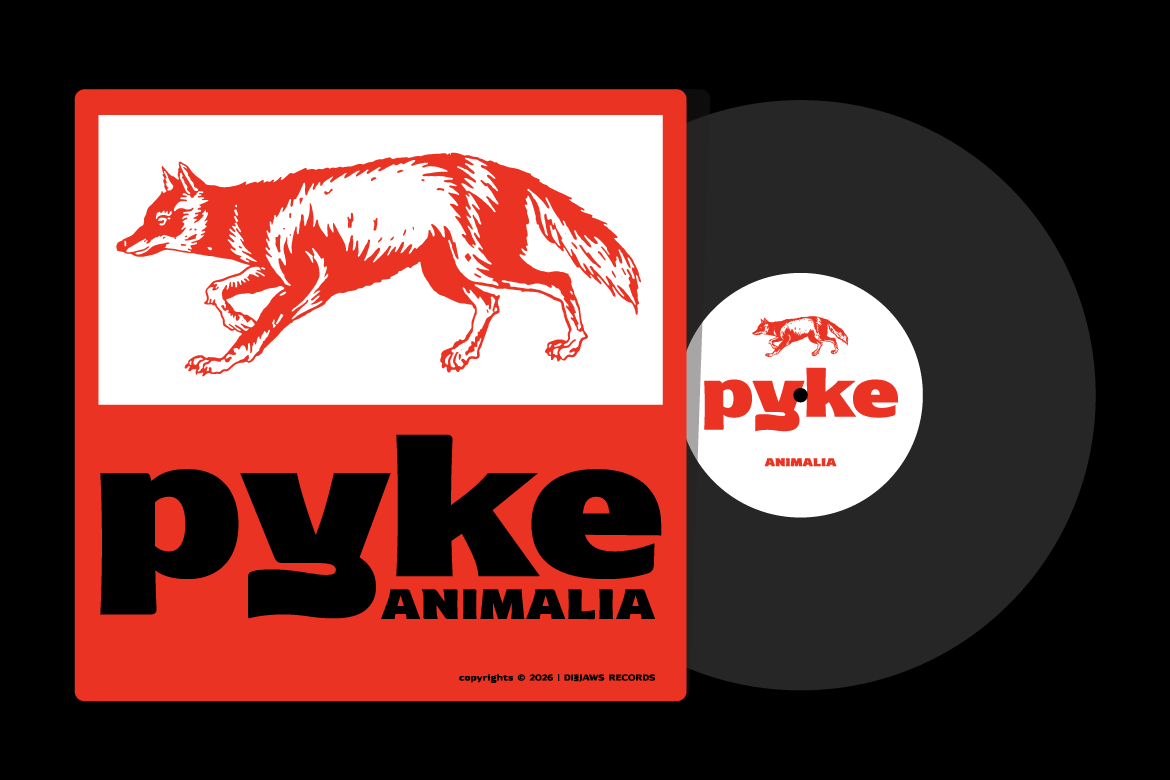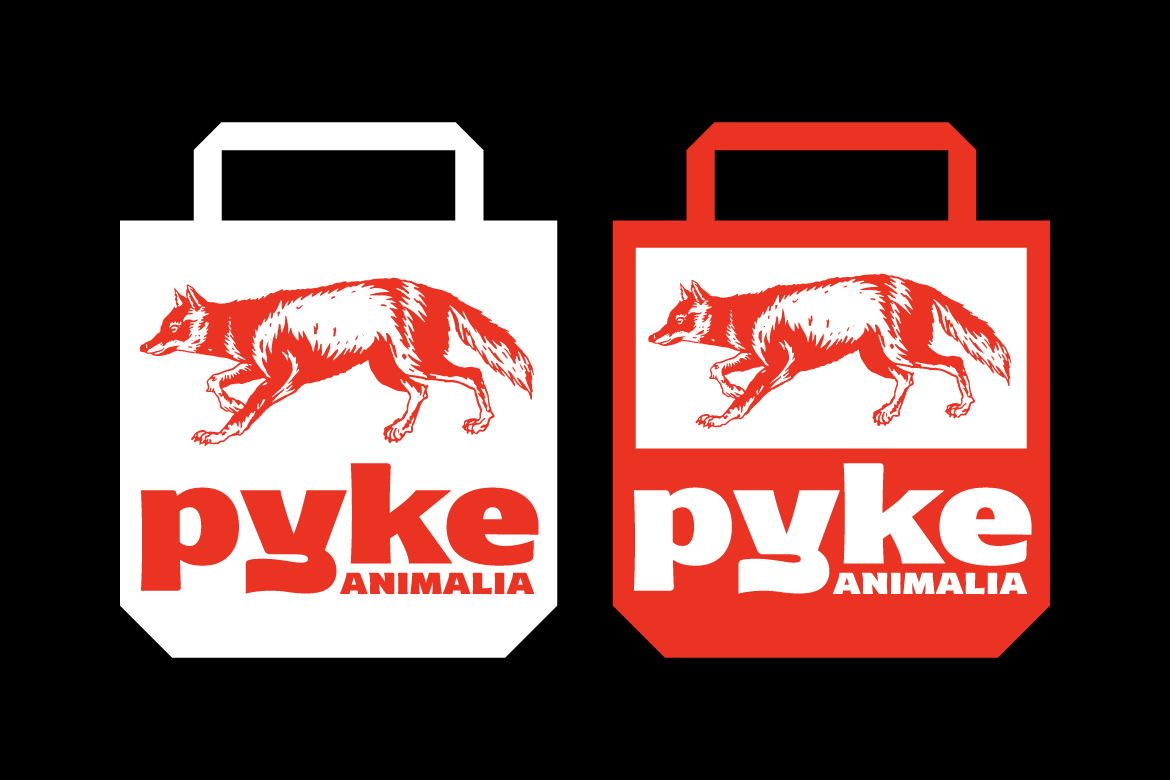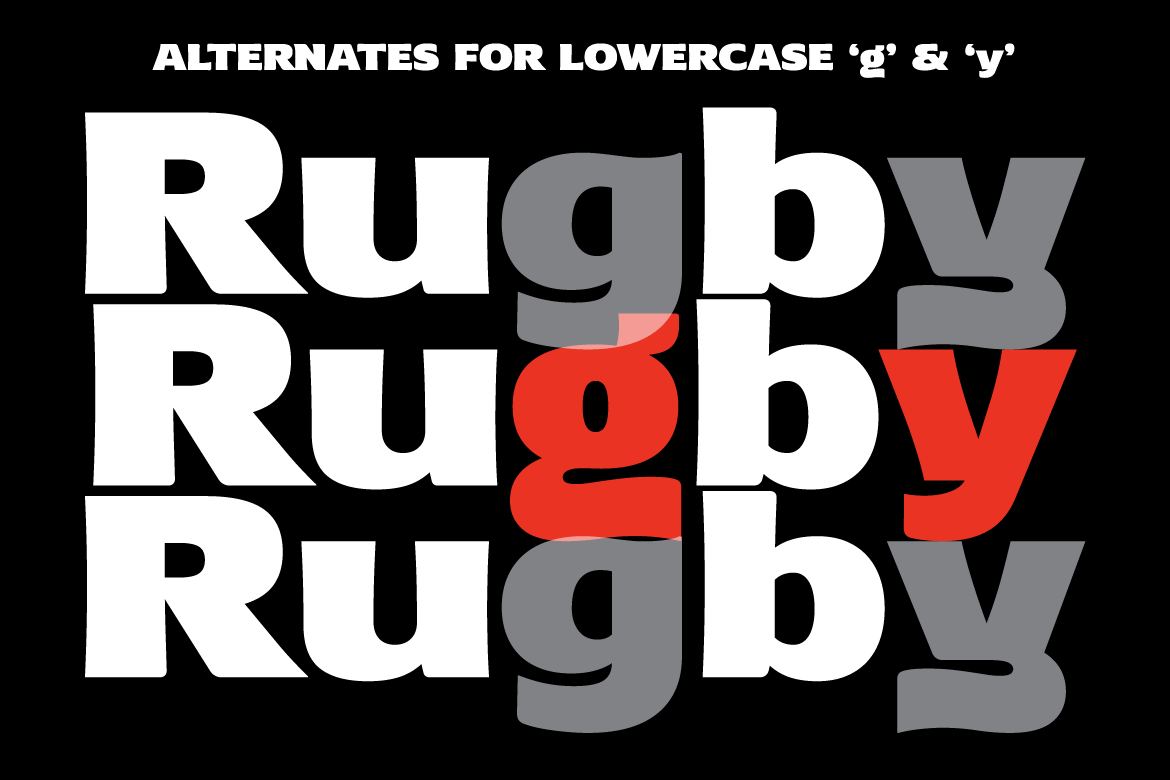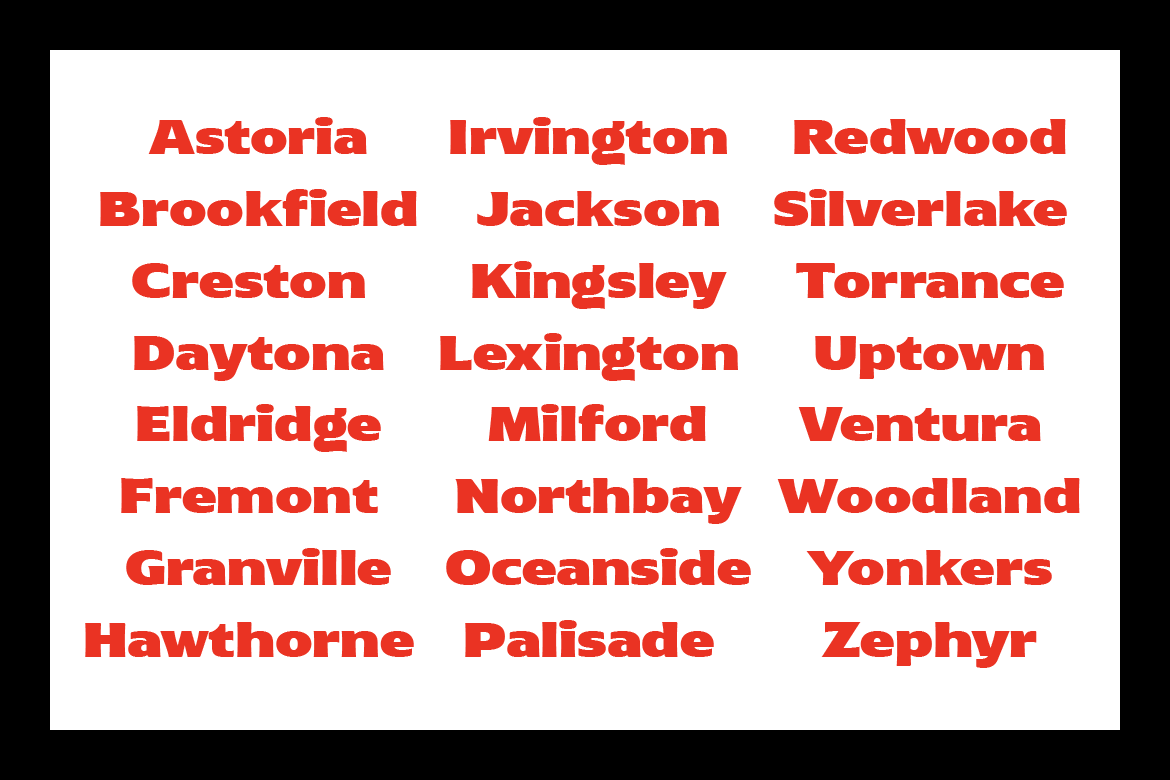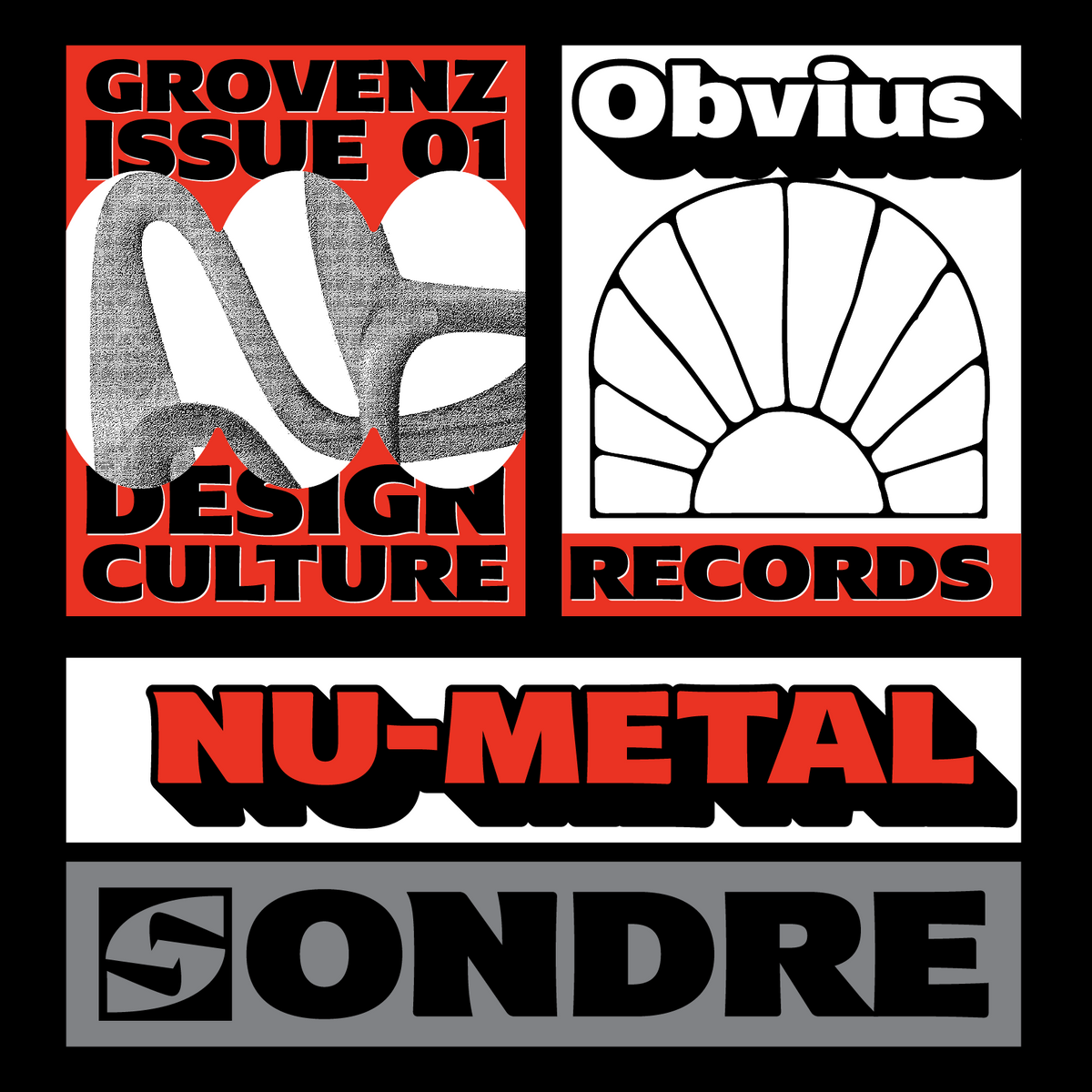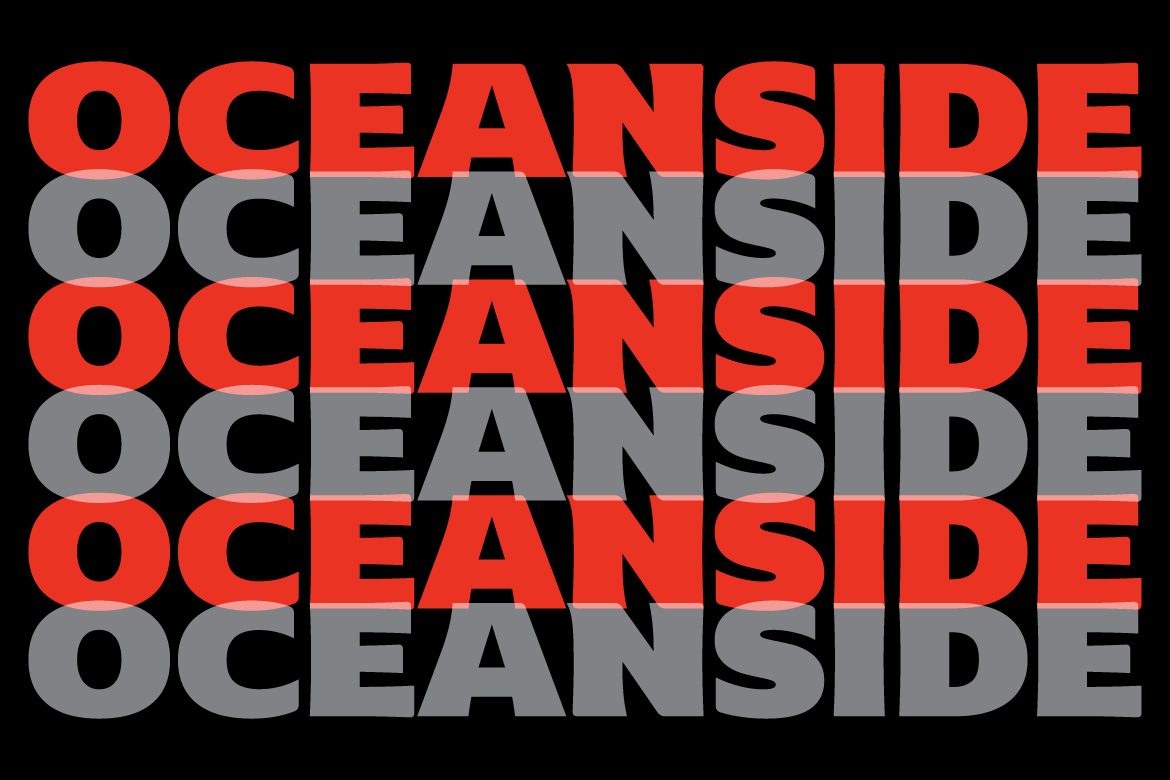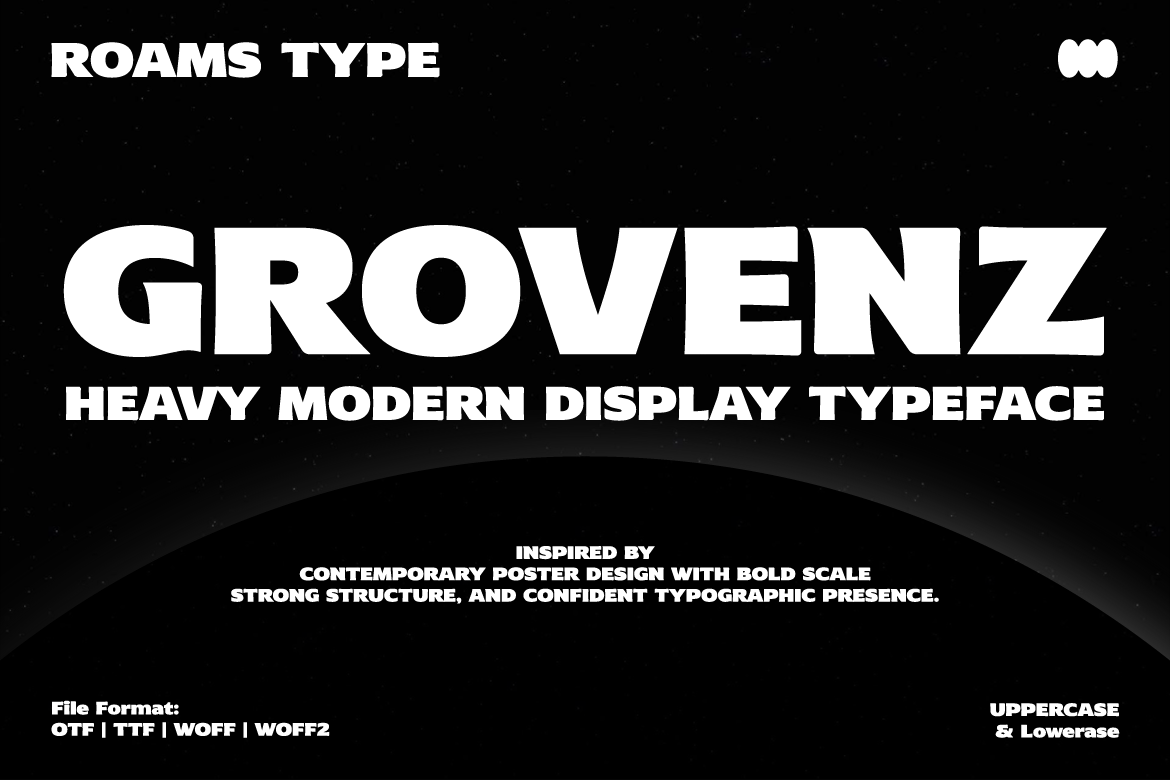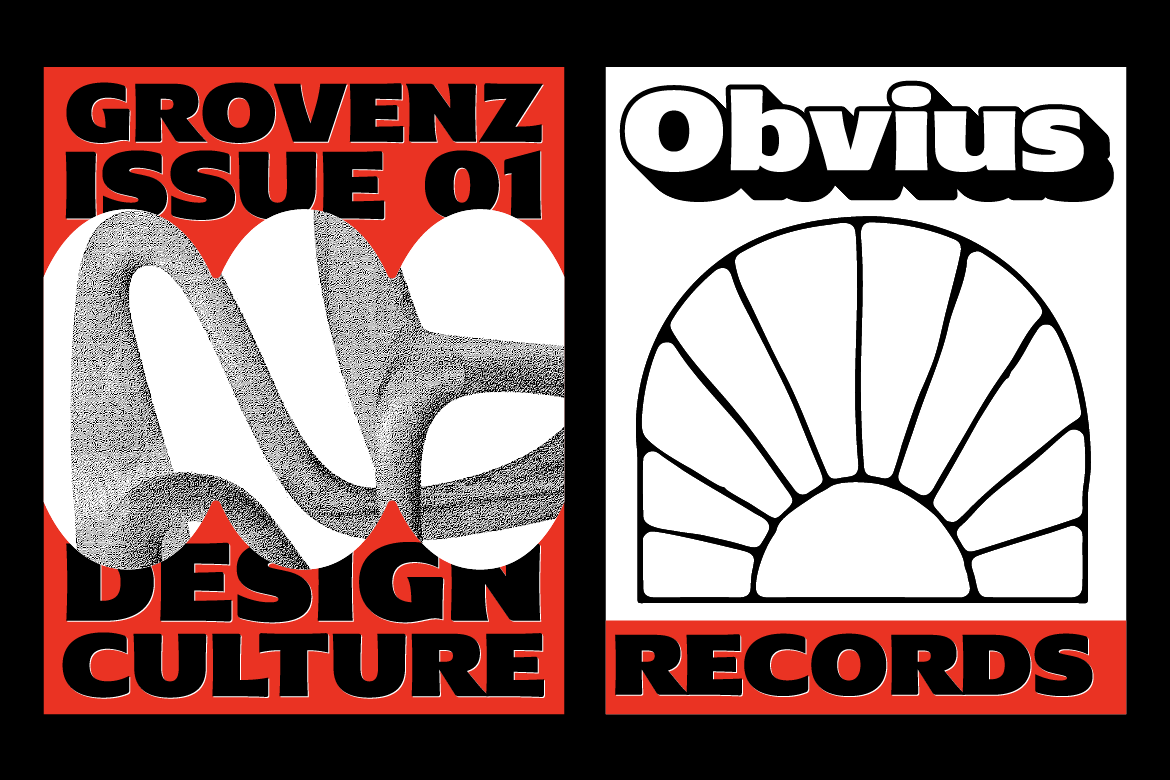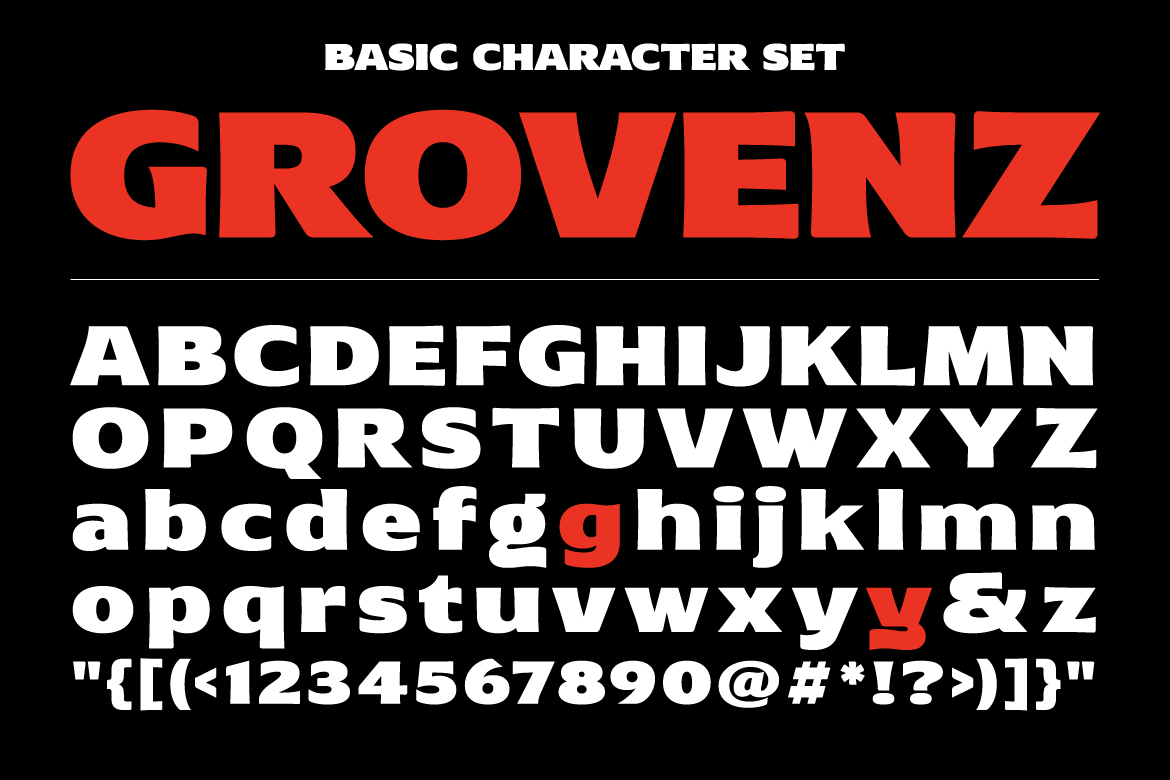
Grovenz - Heavy Modern Display Typeface
GROVENZ is a contemporary heavy display typeface designed to deliver strong visual impact.
Inspired by contemporary poster design with bold scale, strong structure, and confident typographic presence.
Suitable for Branding, Logo Design, Sports Identity, Social Media Graphics, Posters, and Bold Editorial Layouts.
Make your statement. Own the space with GROVENZ.
Grovenz is a heavy modern display typeface with uppercase and lowercase letters, numbers, and punctuation. It is available in OTF, TTF, WOFF, and WOFF2 formats.